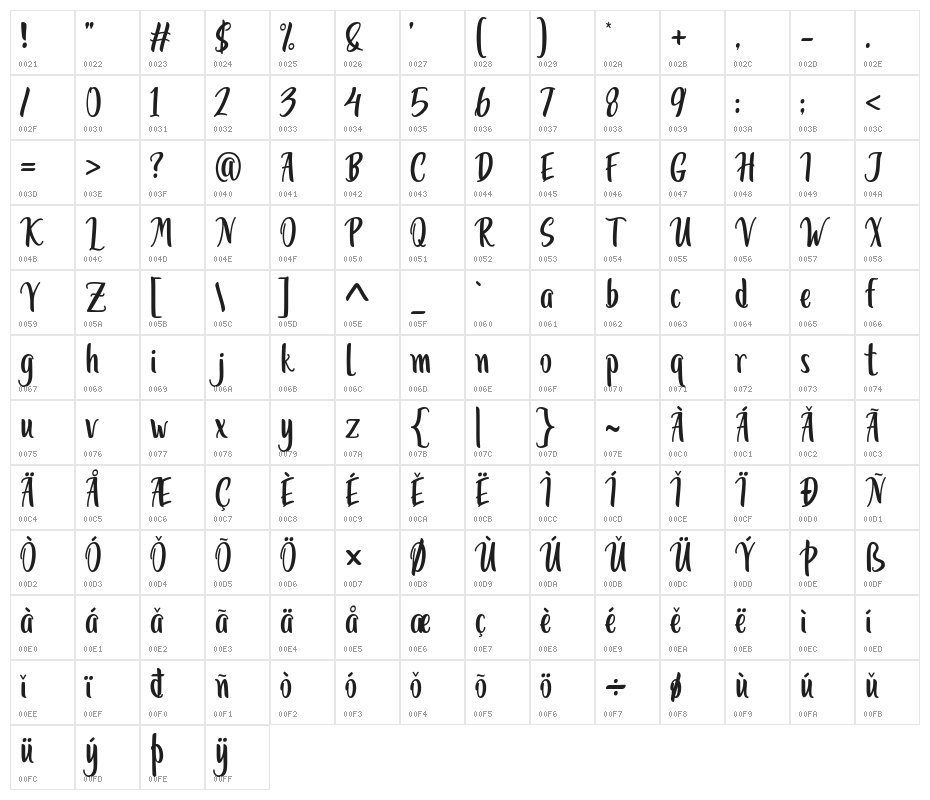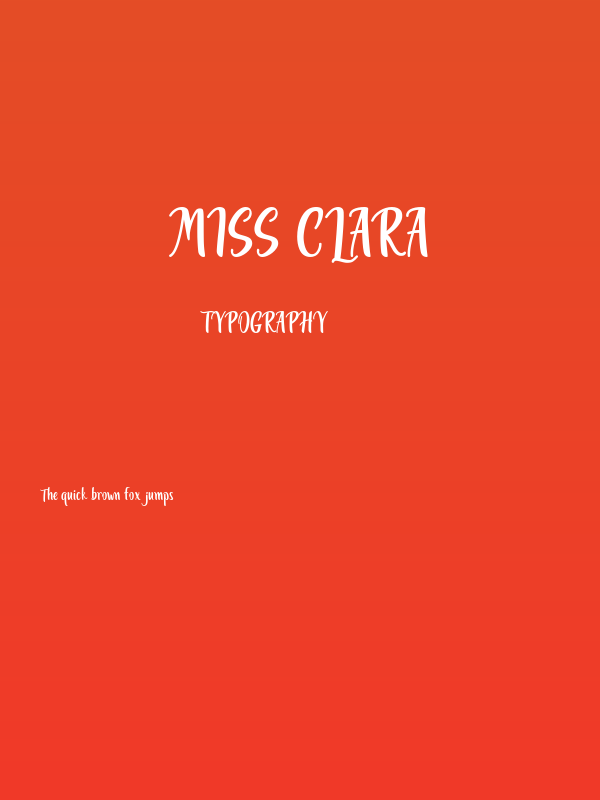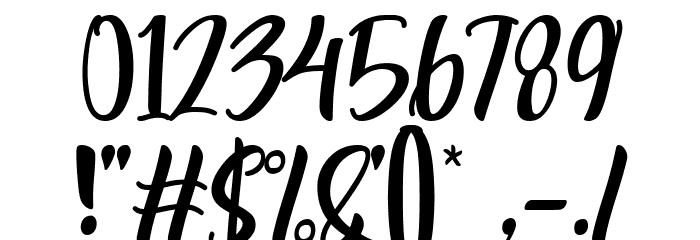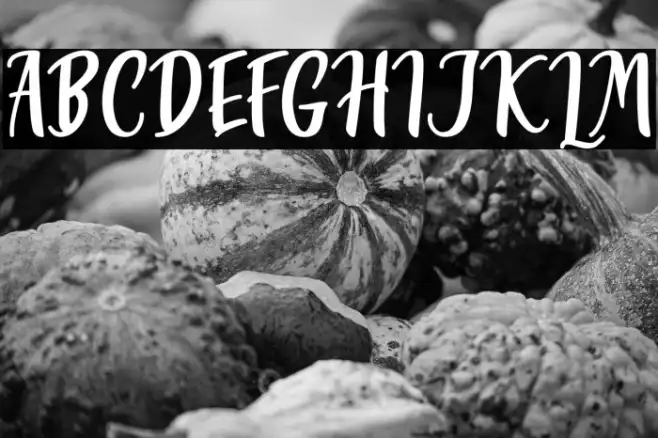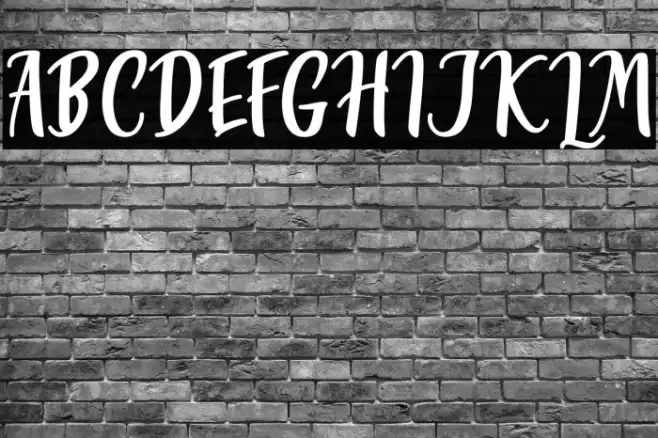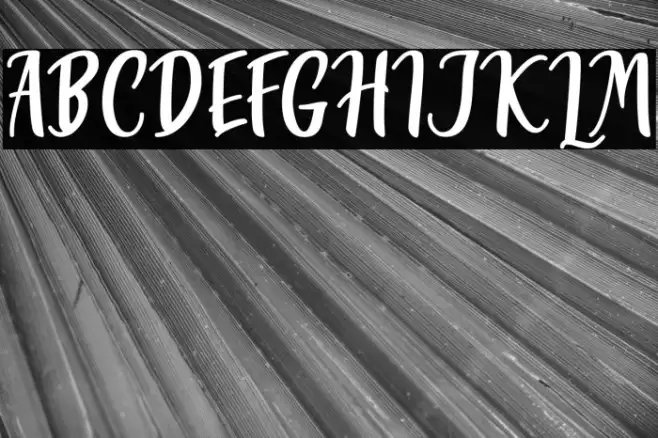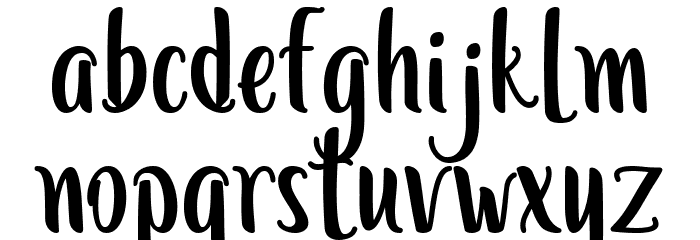
Miss Clara Font
Miss Clara Description
This font features a playful and energetic script style with a handwritten feel. The letters are bold and slightly slanted, giving a sense of movement and fluidity. Each character is uniquely crafted with varying stroke widths, adding a dynamic and lively touch. The uppercase letters are tall and expressive, while the lowercase letters maintain a consistent flow, enhancing readability. The numbers and special characters are designed to match the overall aesthetic, ensuring a cohesive look across all text elements. The font's informal and friendly appearance makes it suitable for creative and casual projects.